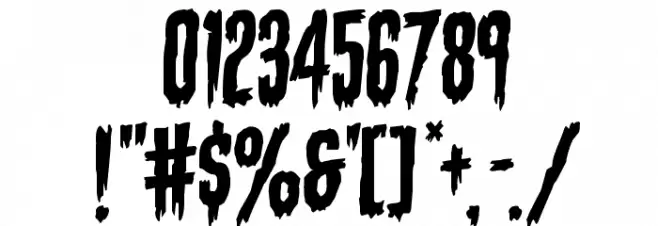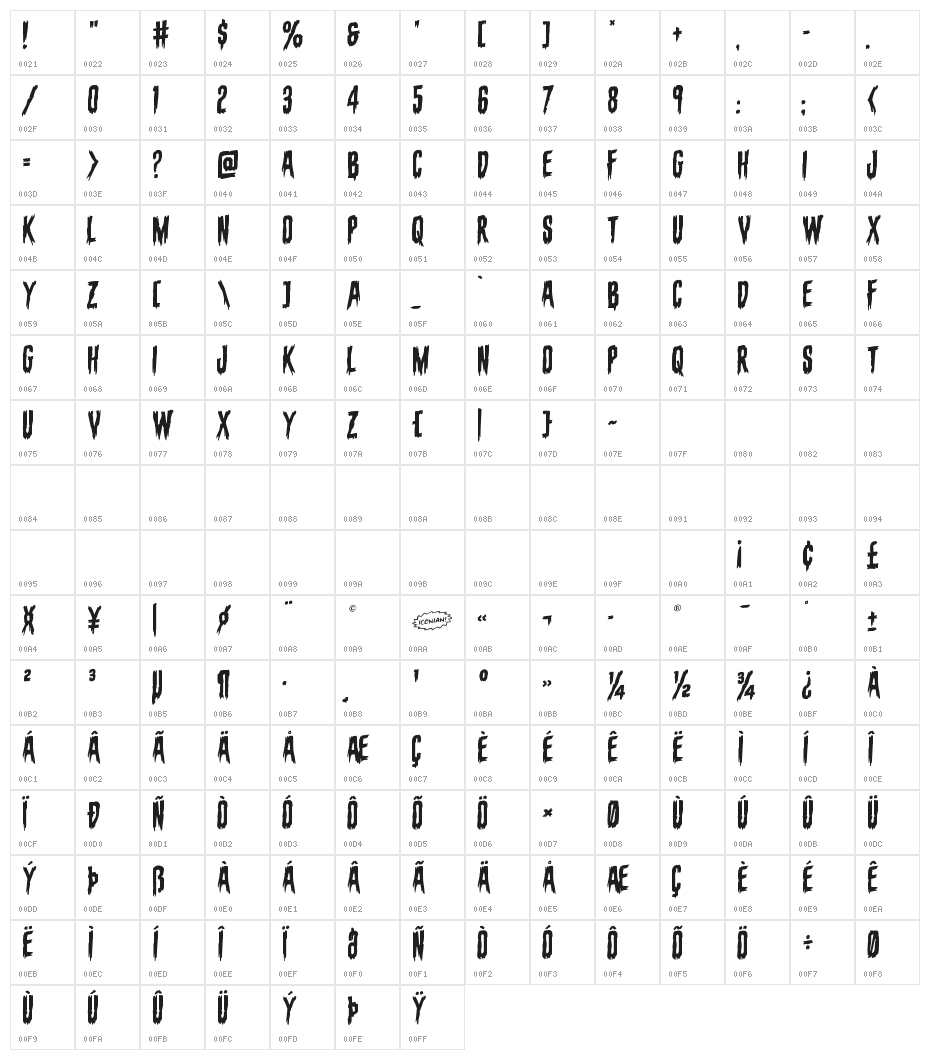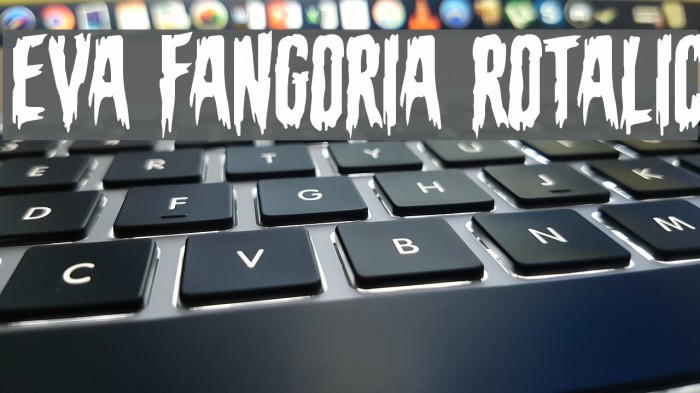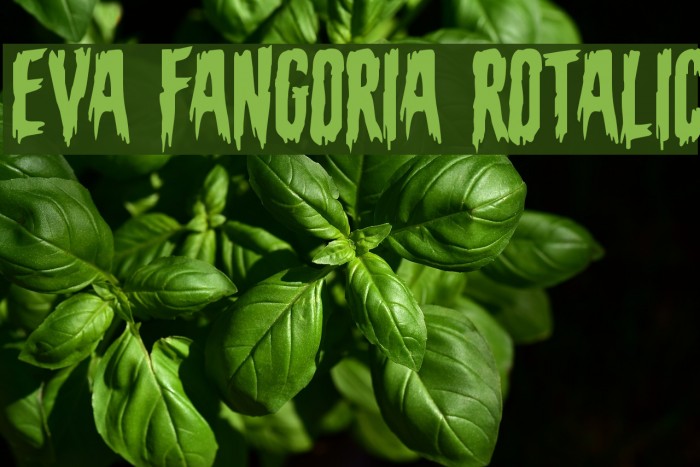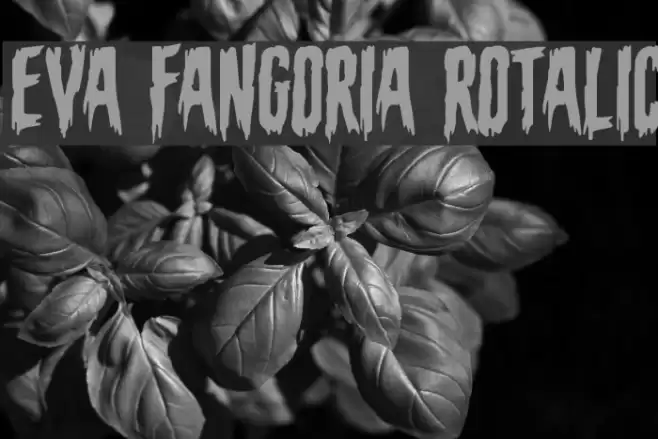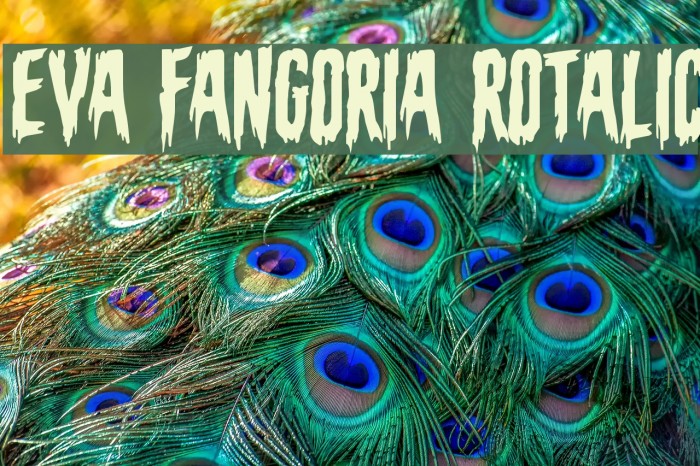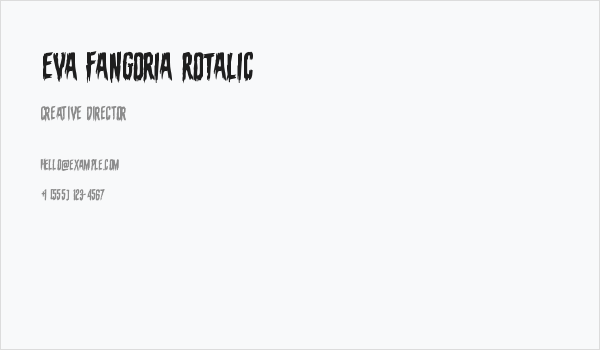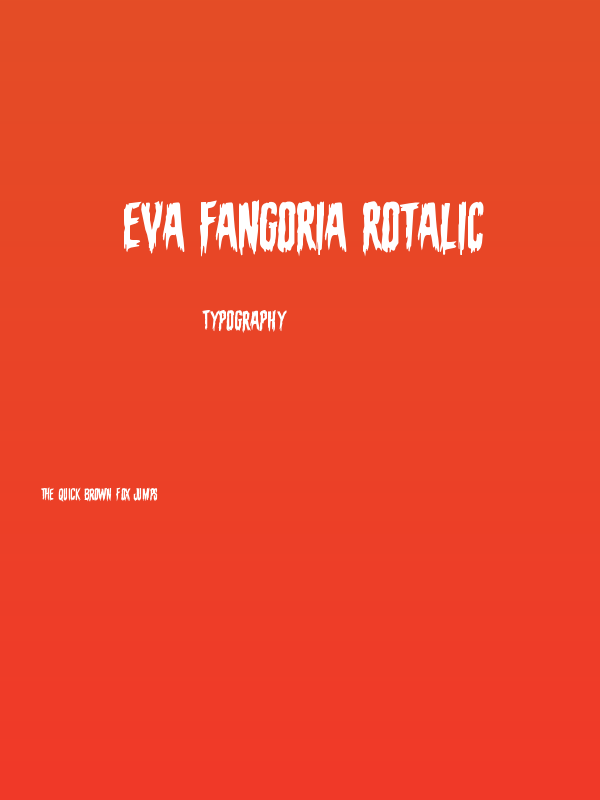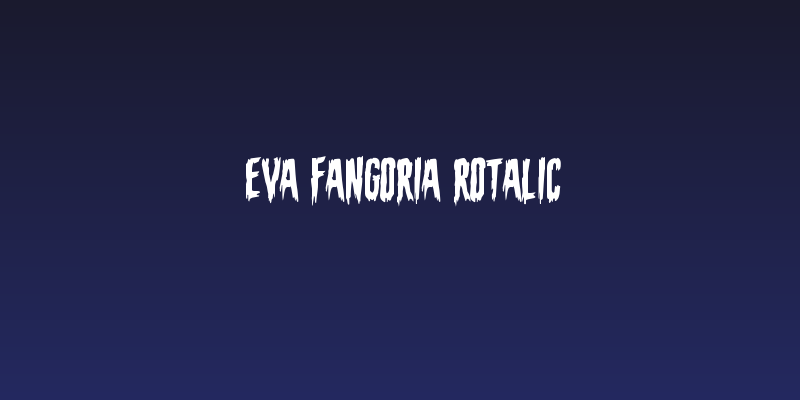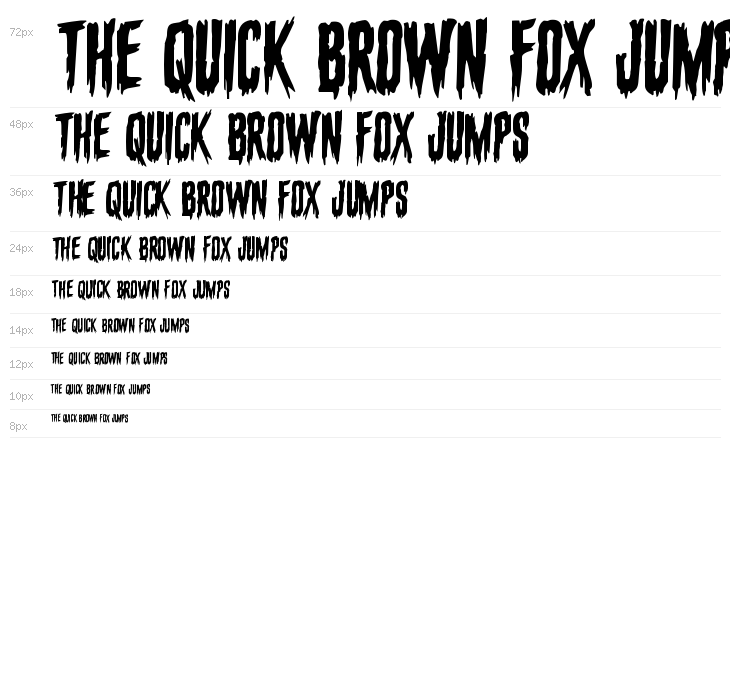
Eva Fangoria Rotalic Font
Eva Fangoria Rotalic Description
This font exudes a bold and edgy style, characterized by its jagged, irregular edges that give it a distressed and horror-themed appearance. The uppercase and lowercase letters maintain a consistent height, contributing to a uniform look despite the chaotic design. The numerals and special characters follow the same aesthetic, ensuring a cohesive visual experience. The font's unique style makes it ideal for projects that require a dramatic and eye-catching typeface, such as horror movie posters, Halloween event flyers, or themed merchandise. Its distinctive appearance ensures that it stands out in any context, making it a versatile choice for creative projects.